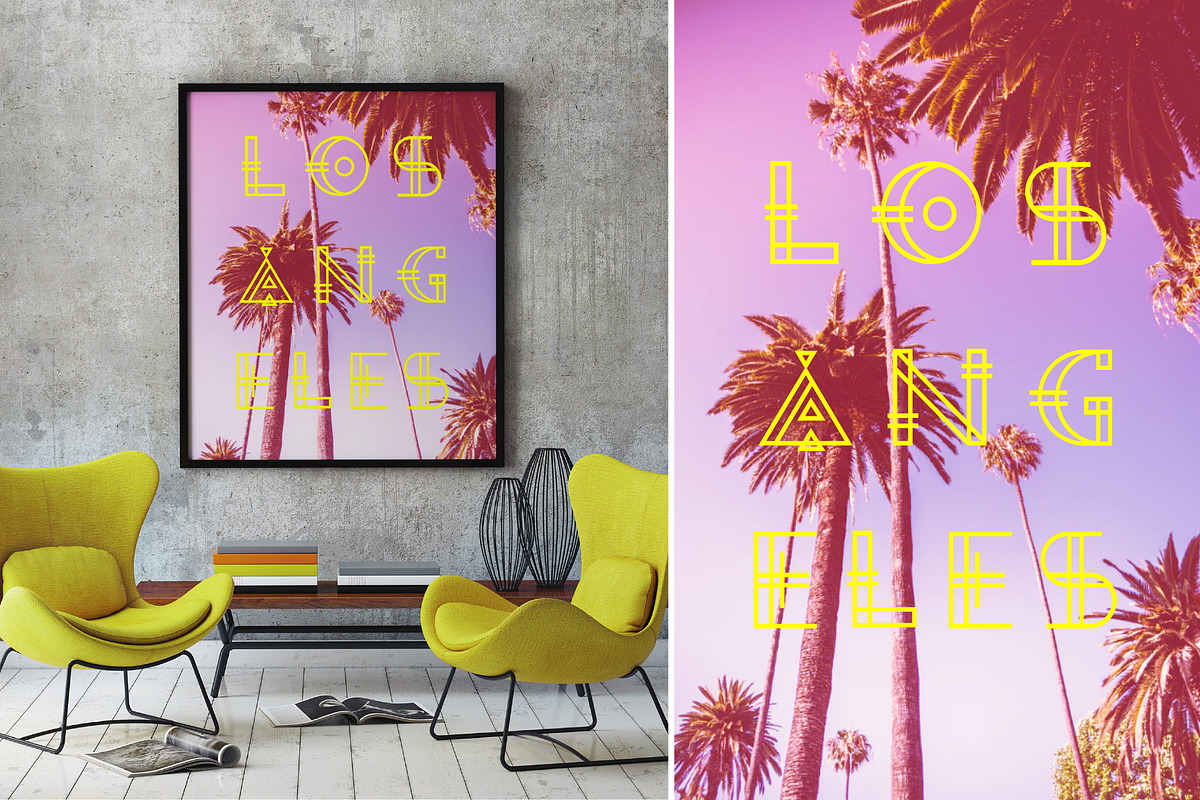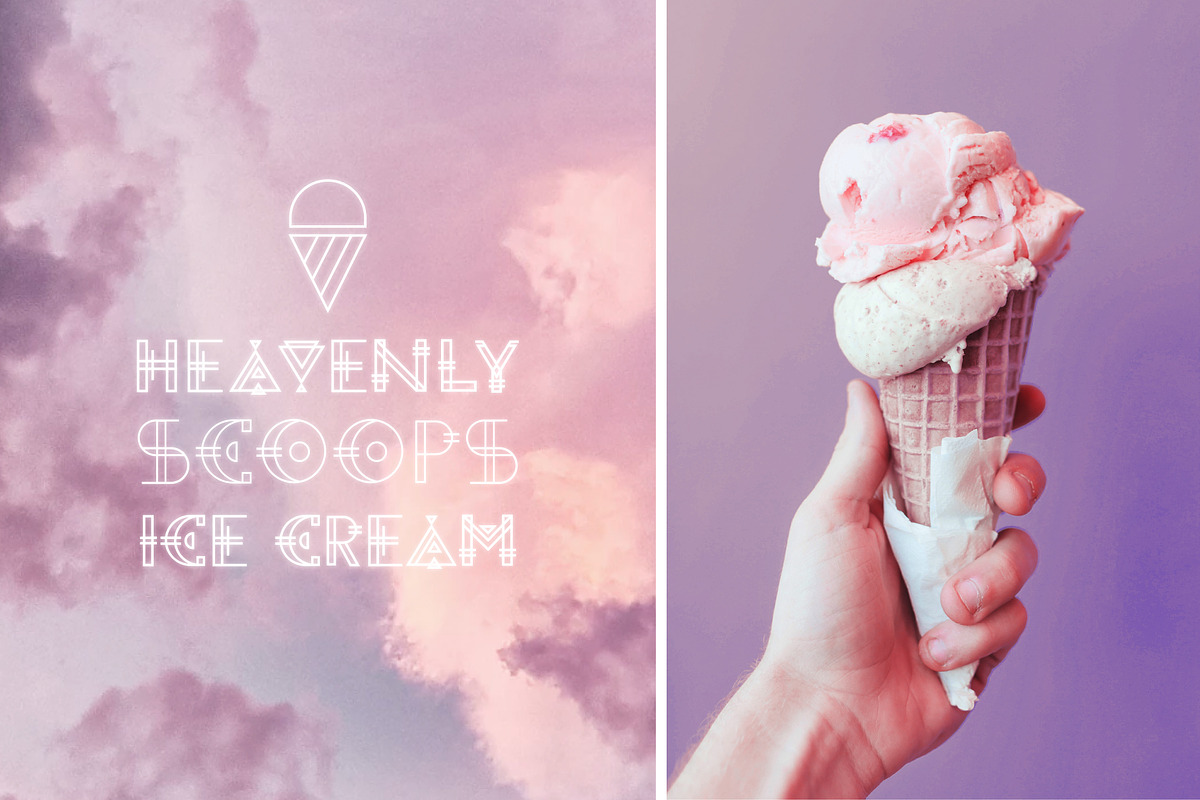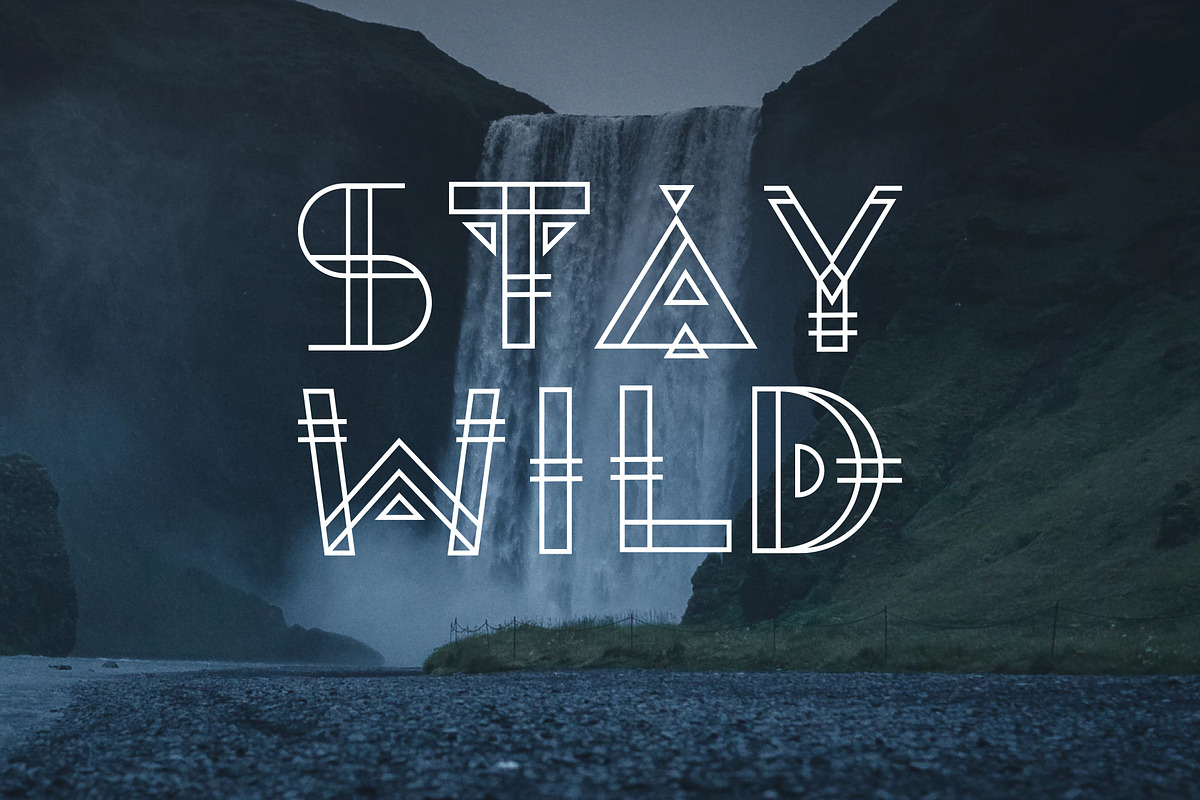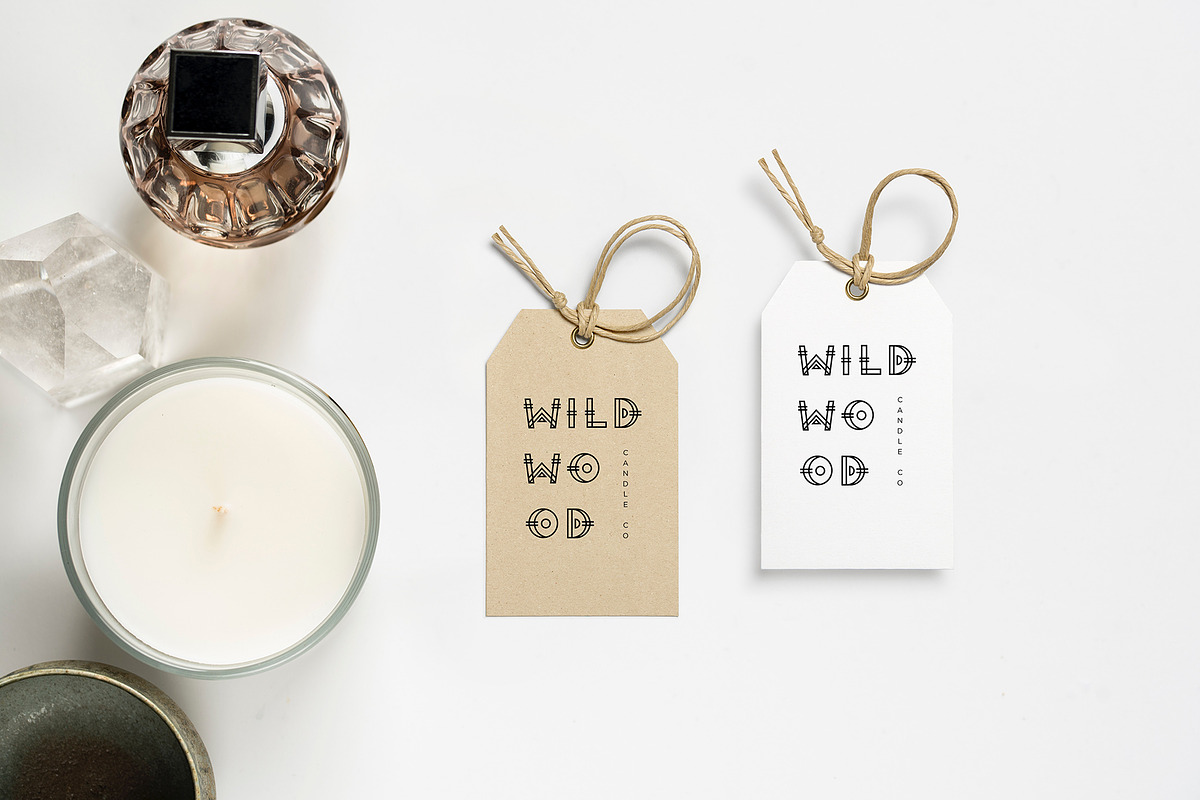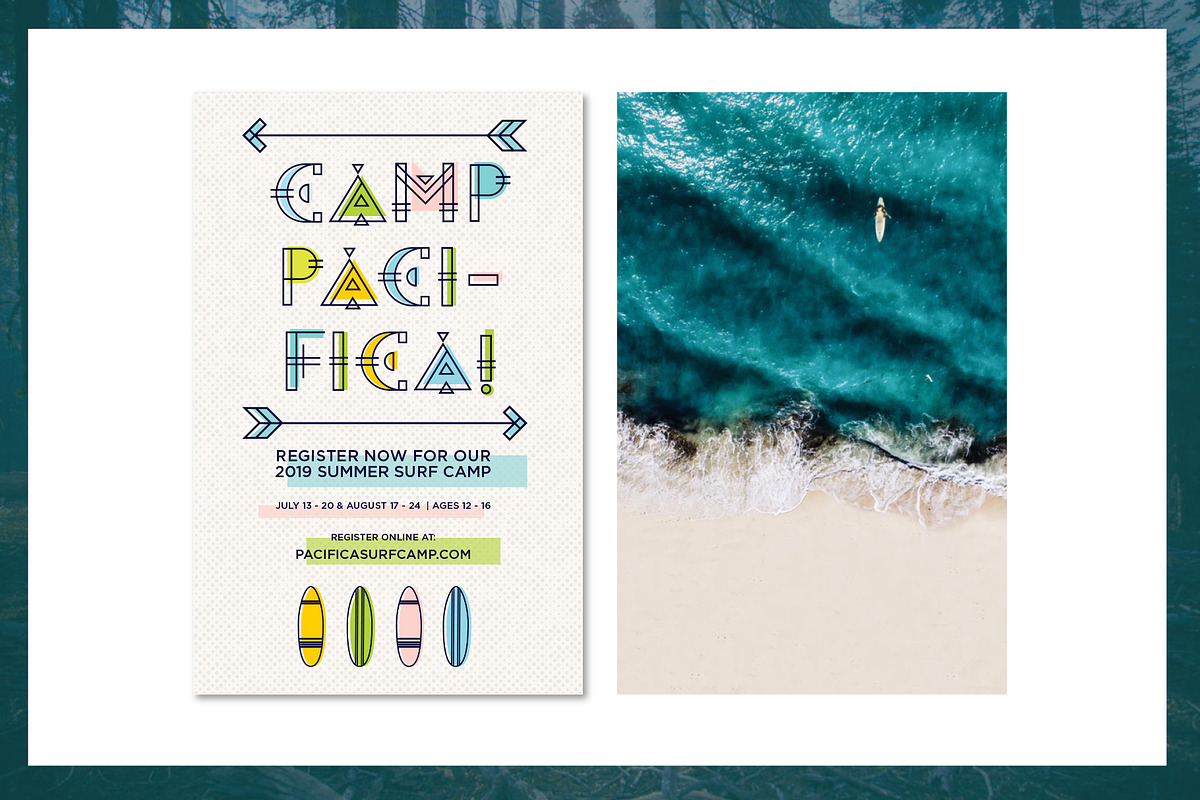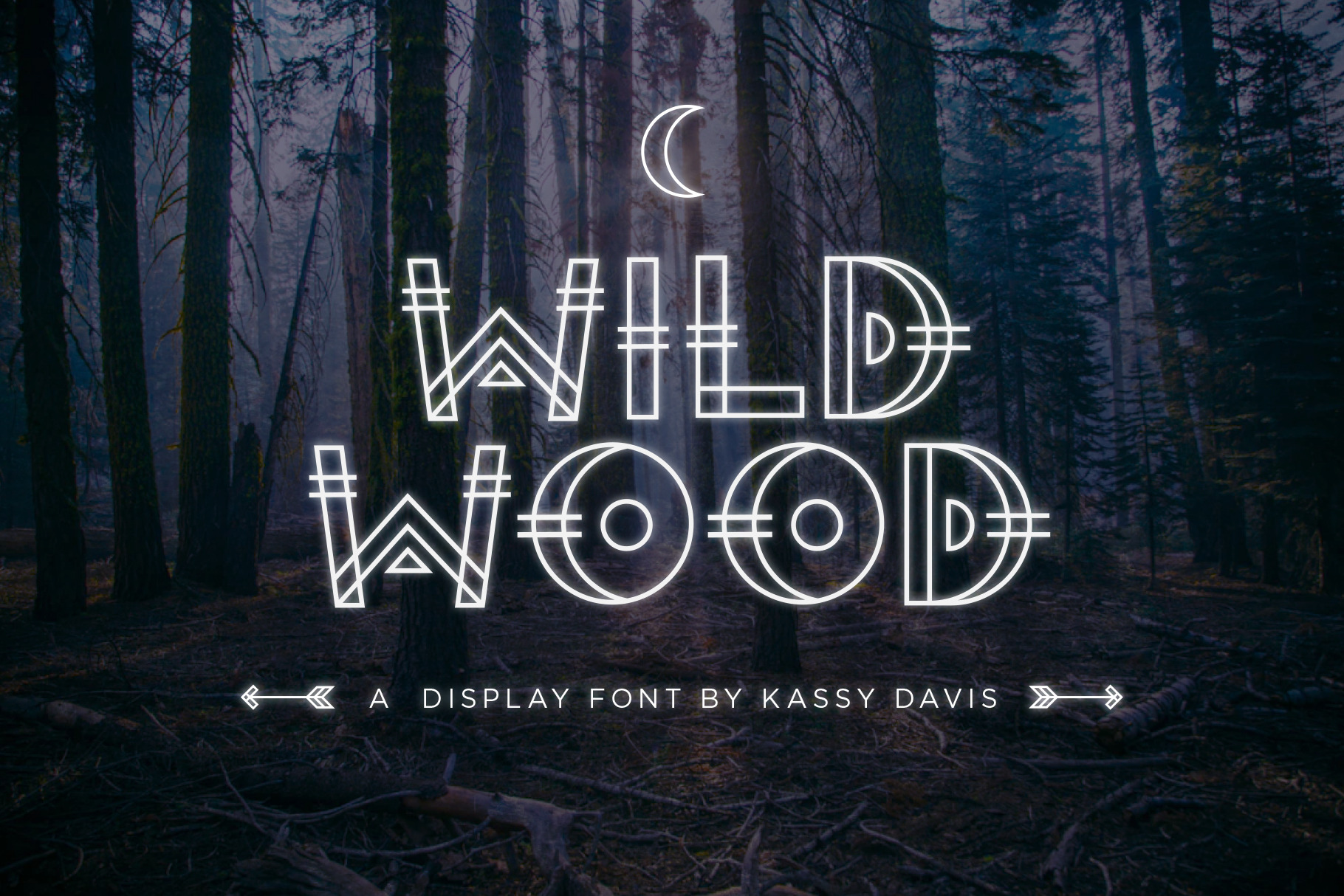
Wild Wood Font + Extras
Introducing my very first font: Wild Wood!
Inspired by the woods with all of its magic and mystery, I created a headline font that reflects those mystical vibes while still keeping an icon aesthetic.
Wild Wood Includes:
• Numbers, punctuation & accents
• Please note: The uppercase & lowercase are the same.